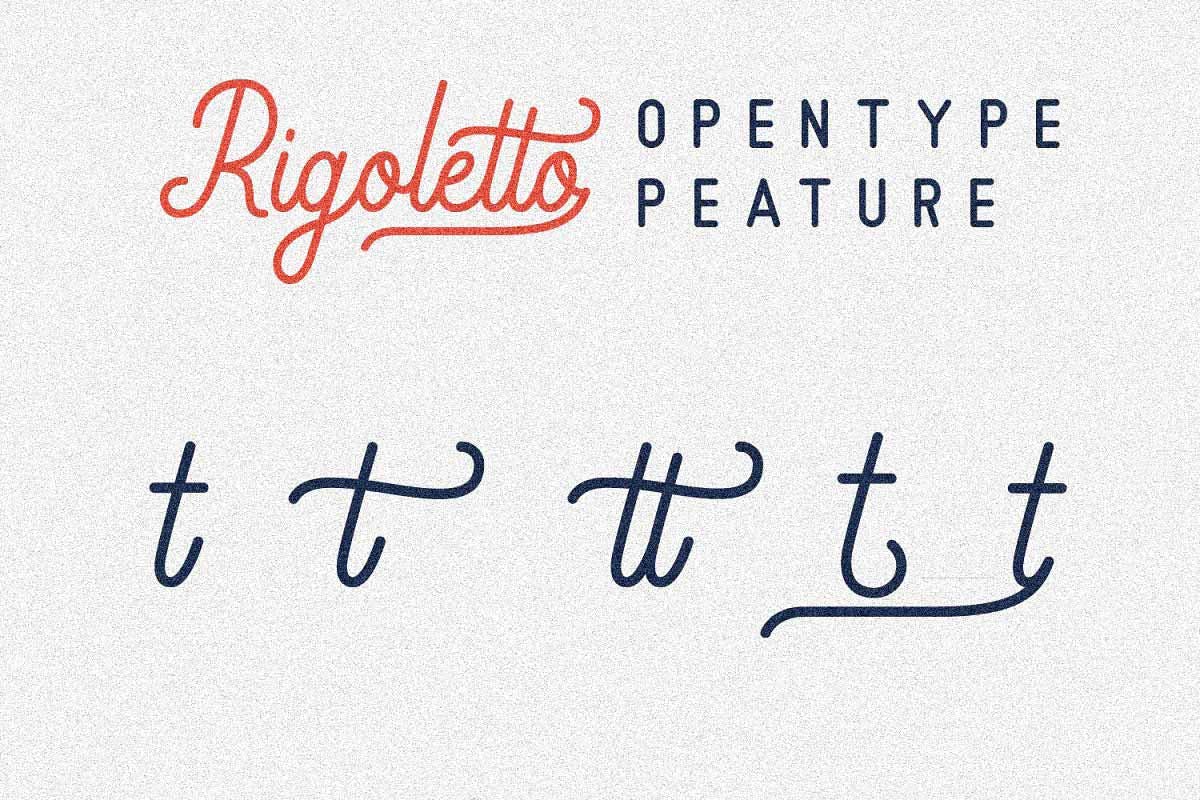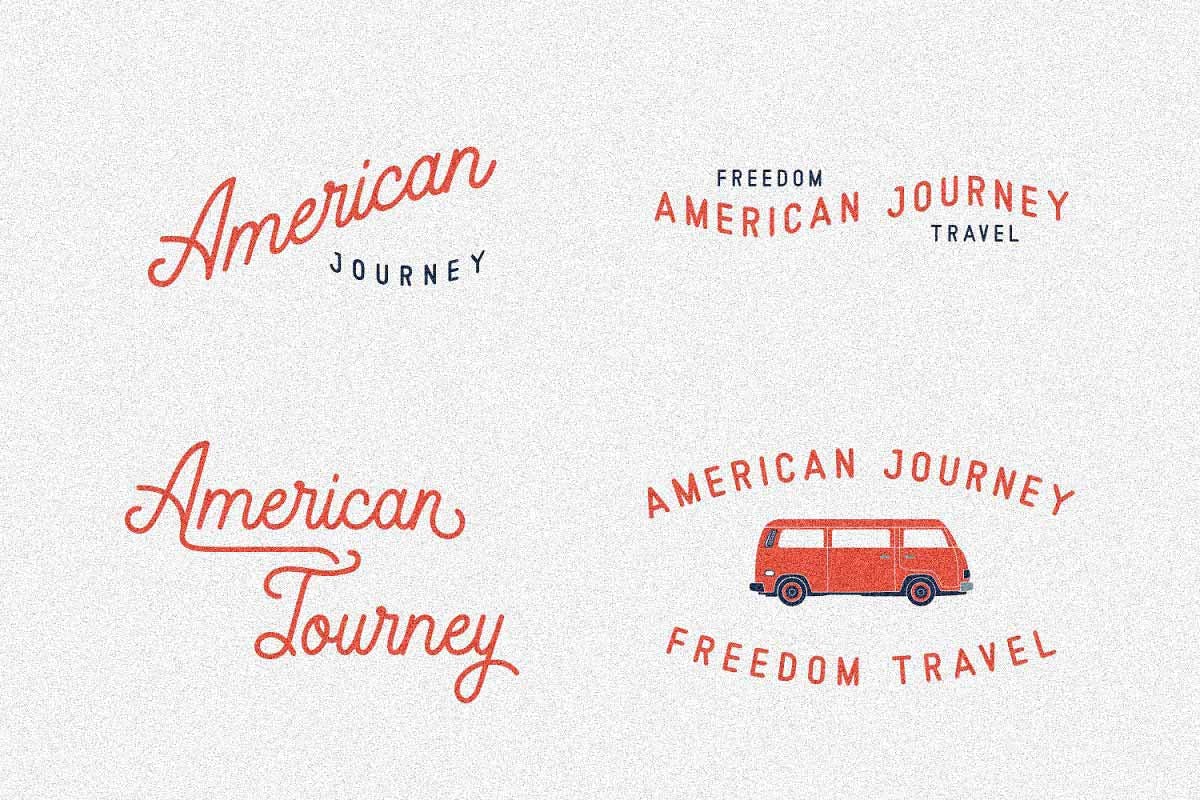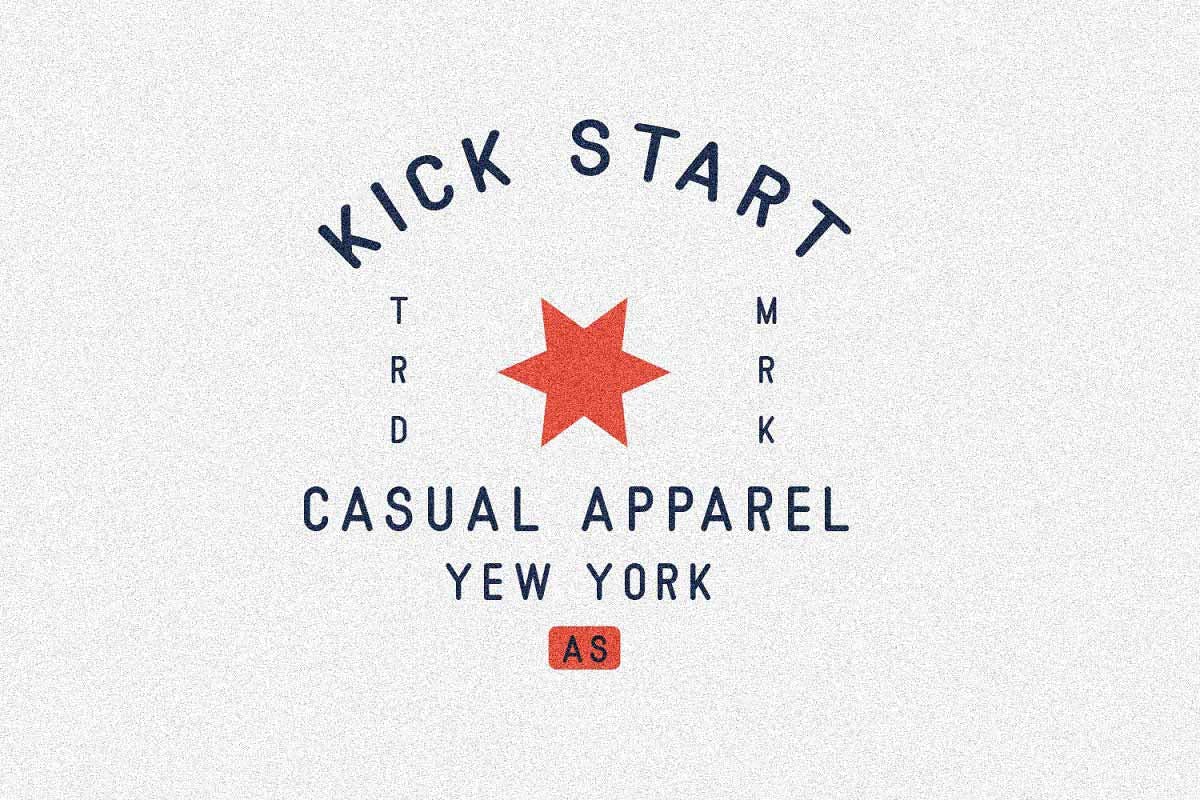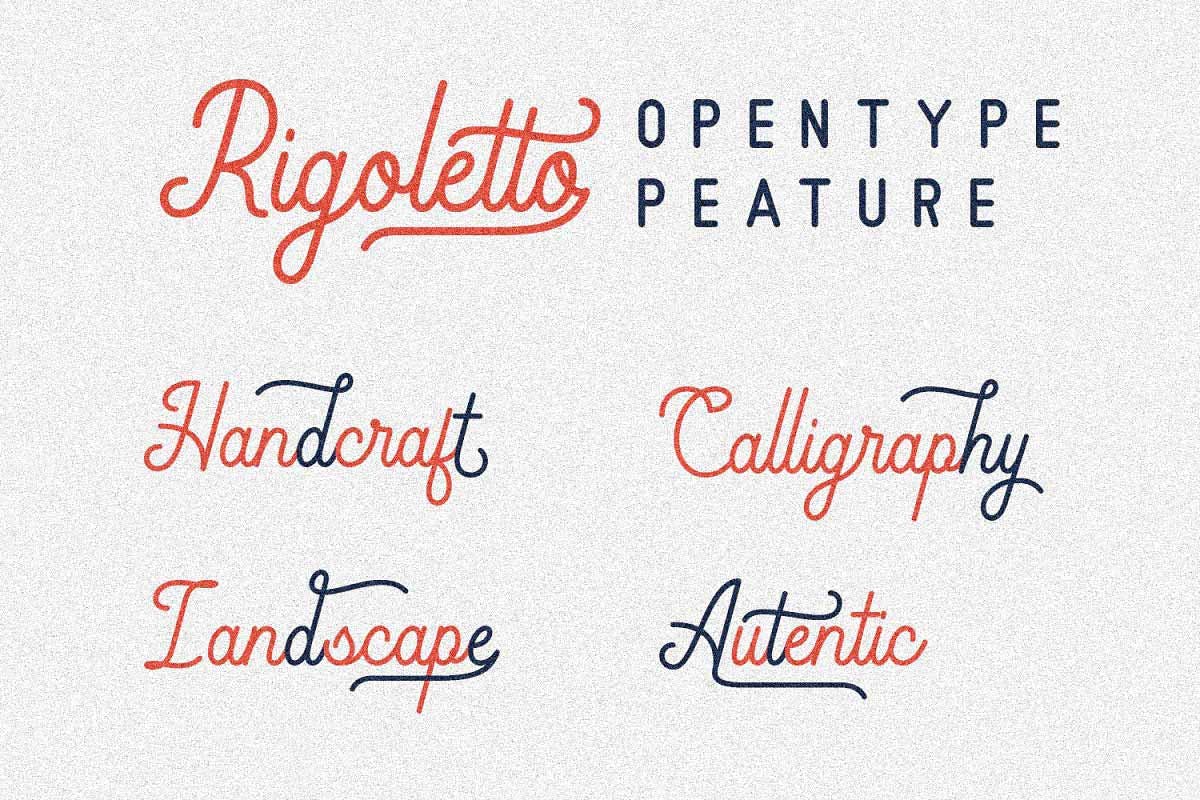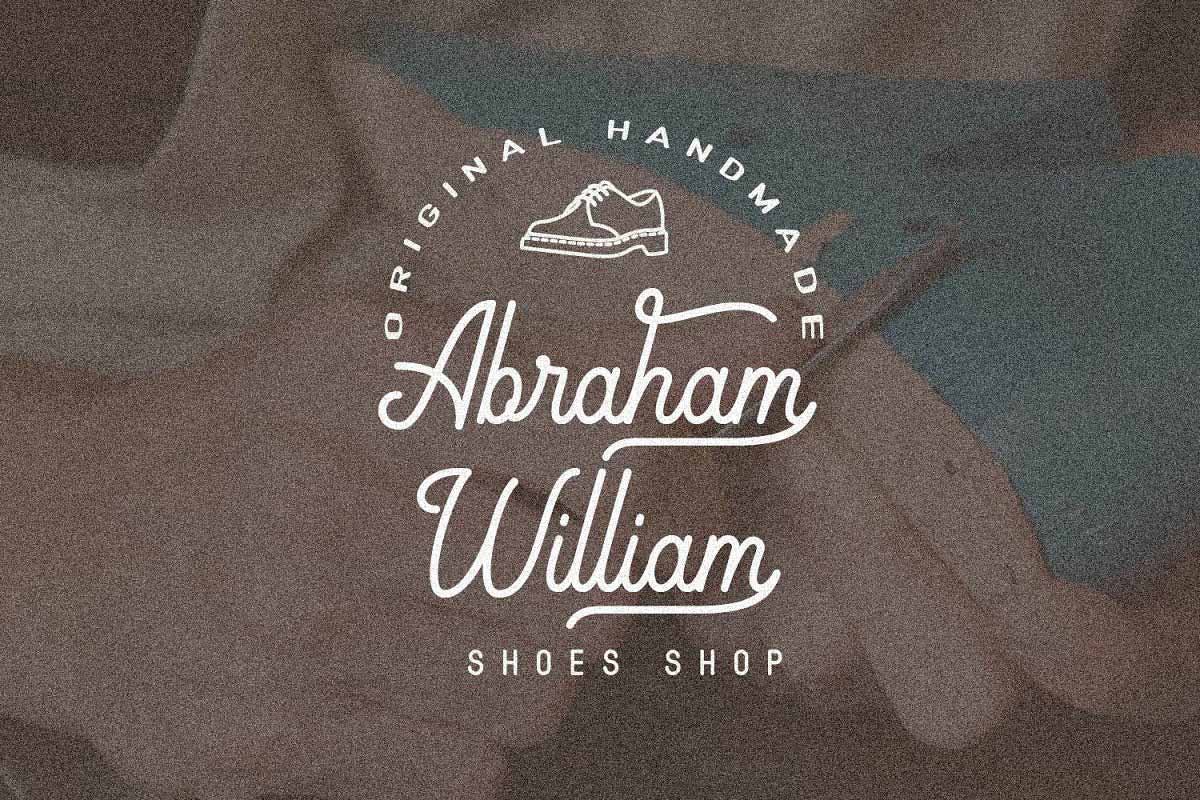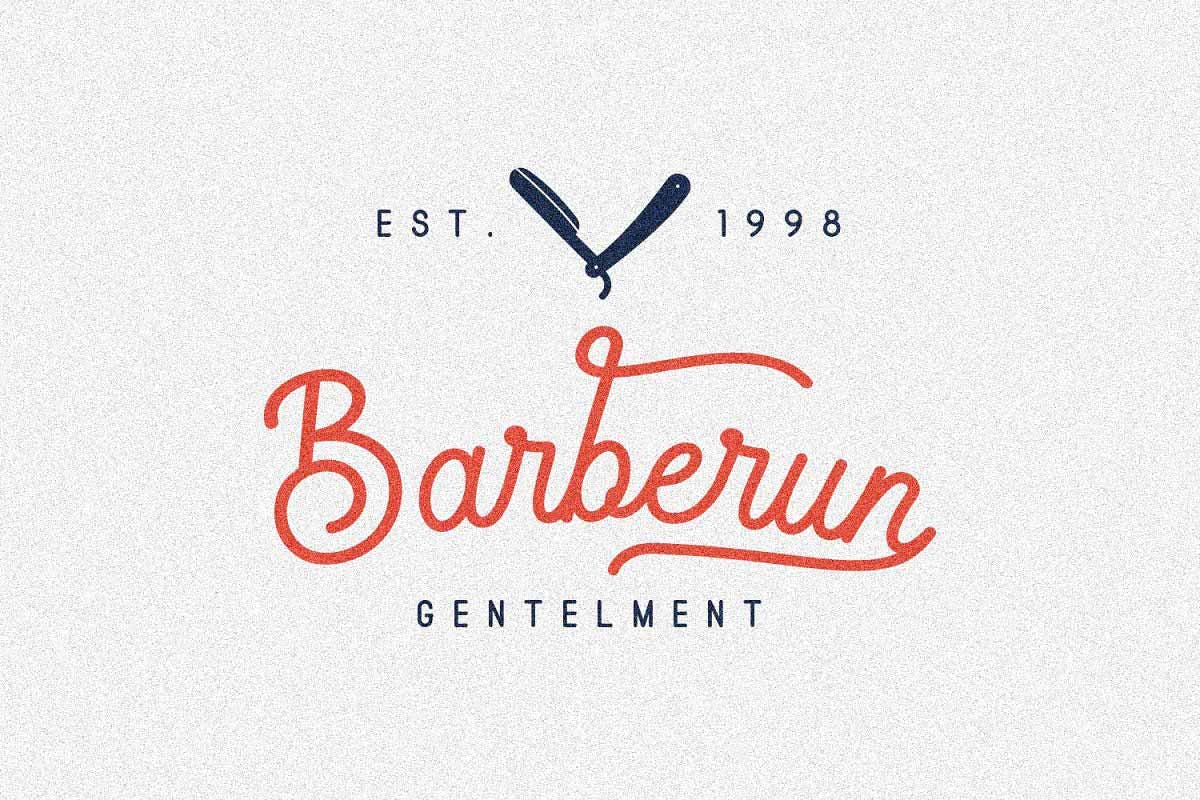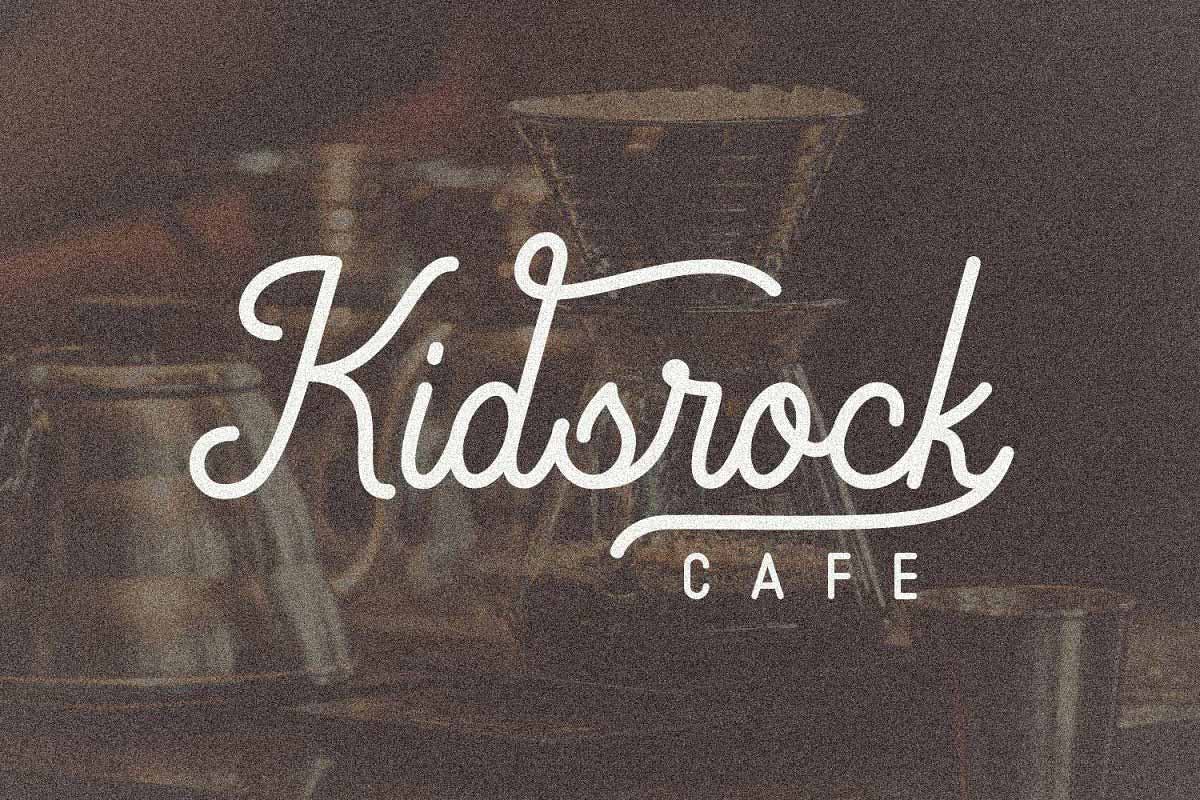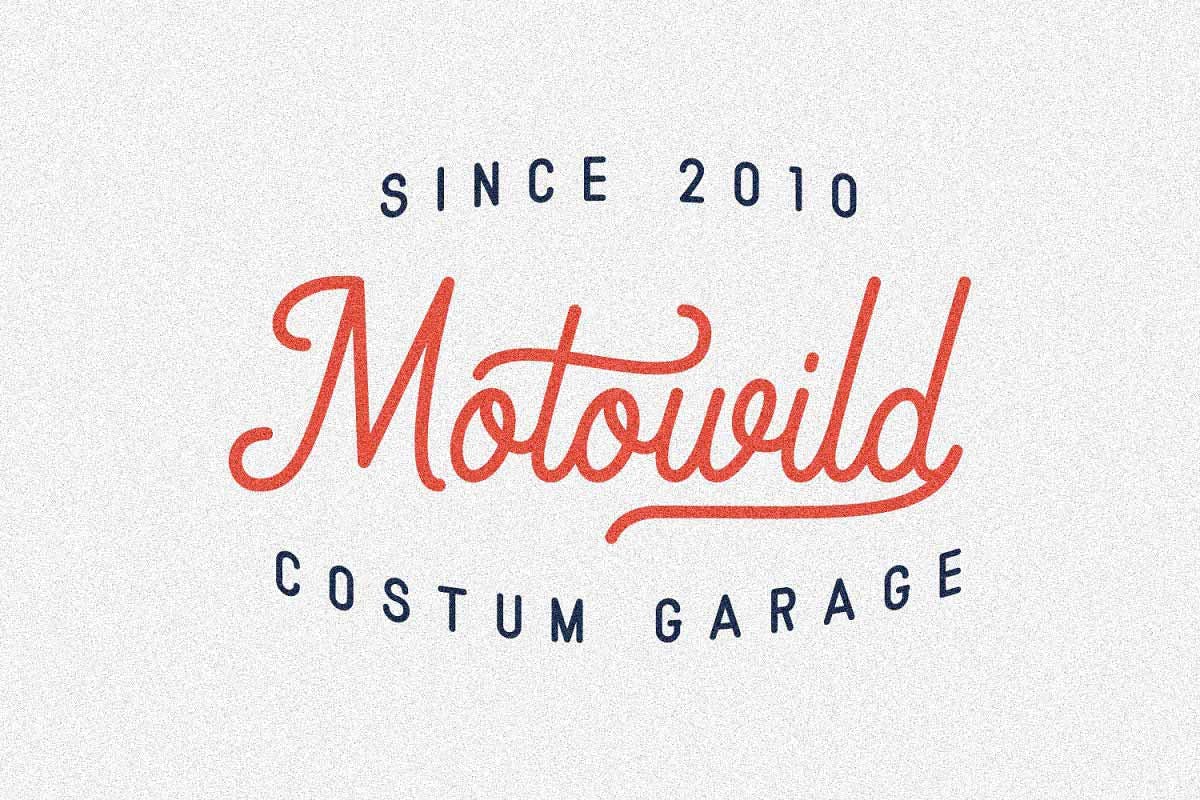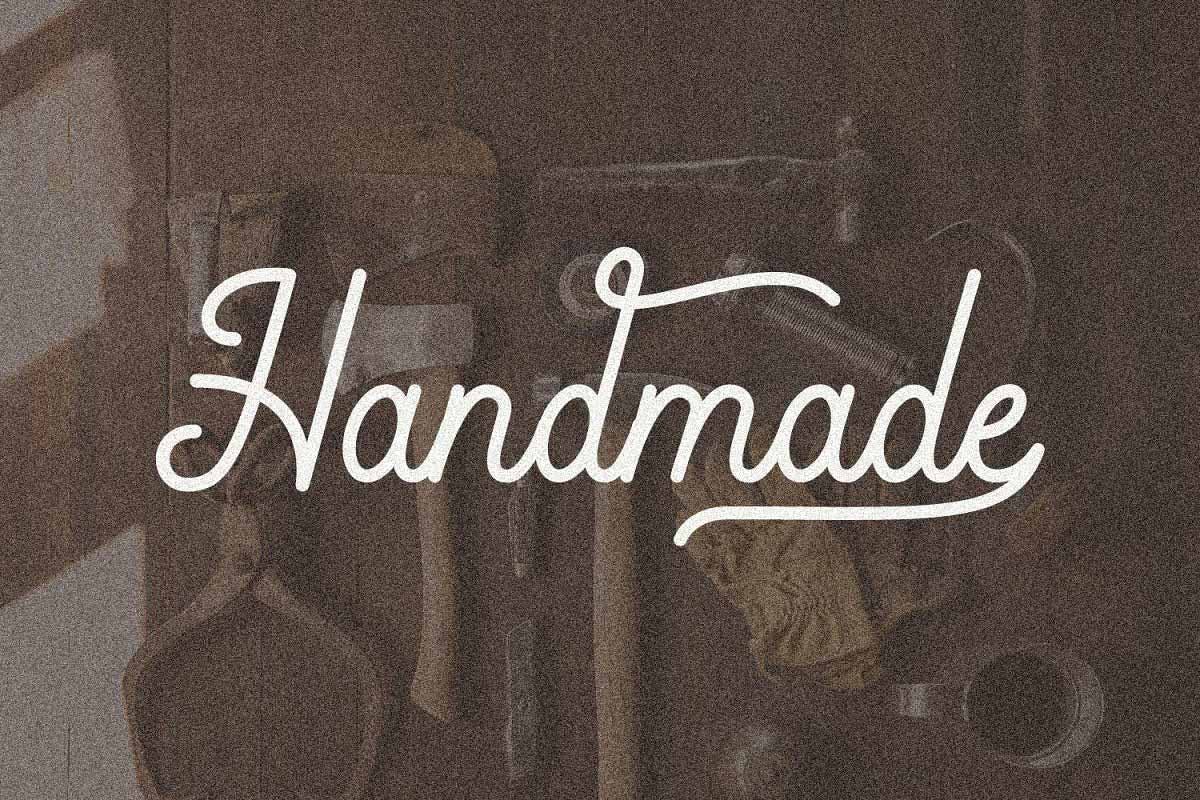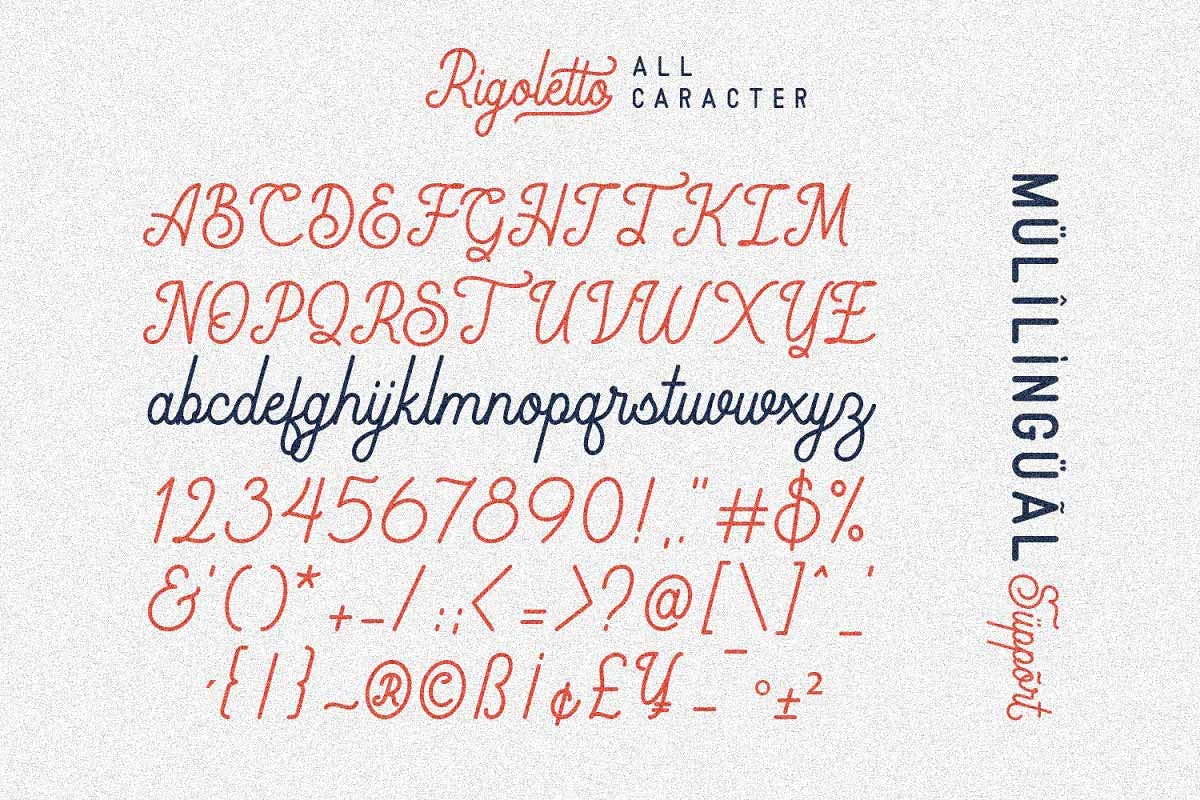
Free Rigoletto Script Font
Hello everybody! Today, we have an amazing script font which is Free Rigoletto Script Font. It is a font that you can combine in your projects. This is a very good typeface font with a strong character and has its own identity. Present your designs with this font, because this font is suitable for flyers, wedding invitations, gift cards, magazines, banners, and much more. This awesome font is available for OTF format file, you can install on your devices and use it as well. However, this demo font is coming with a personal license use, get the premium version for your commercial projects.